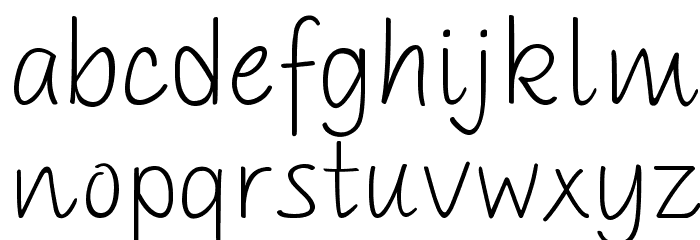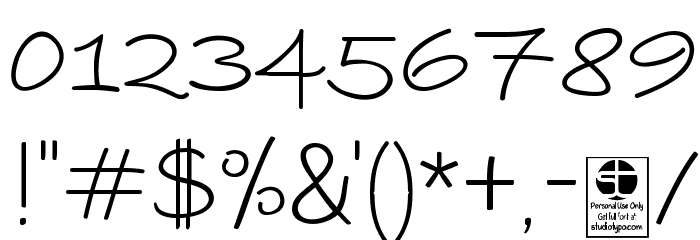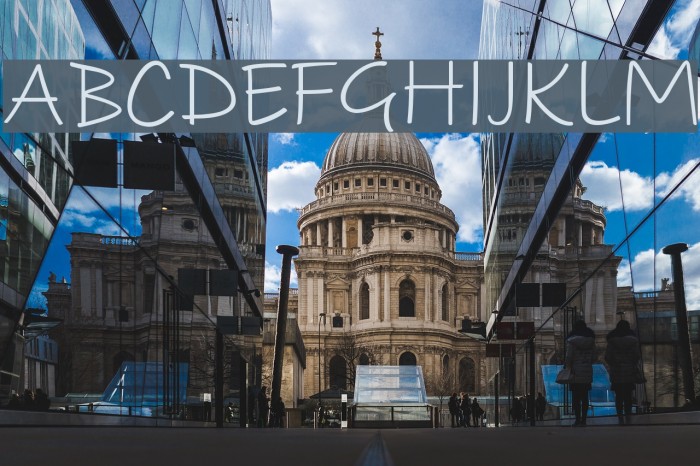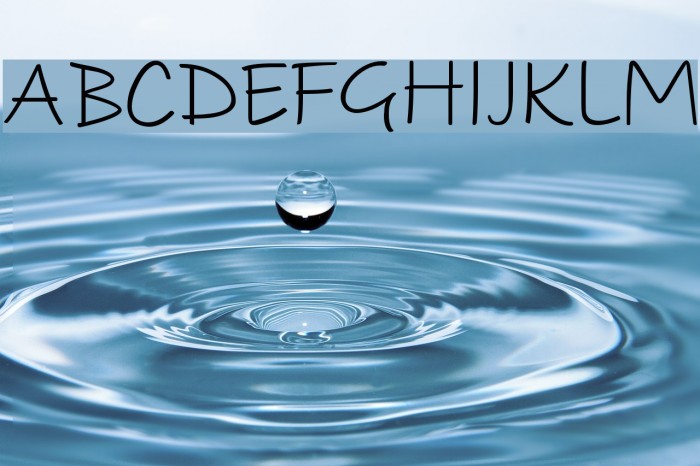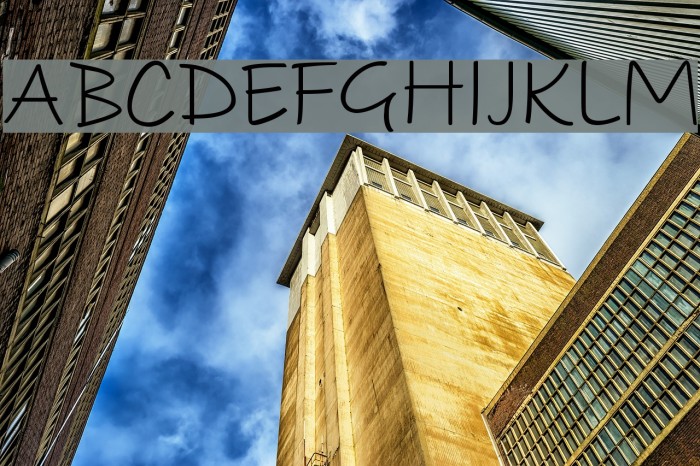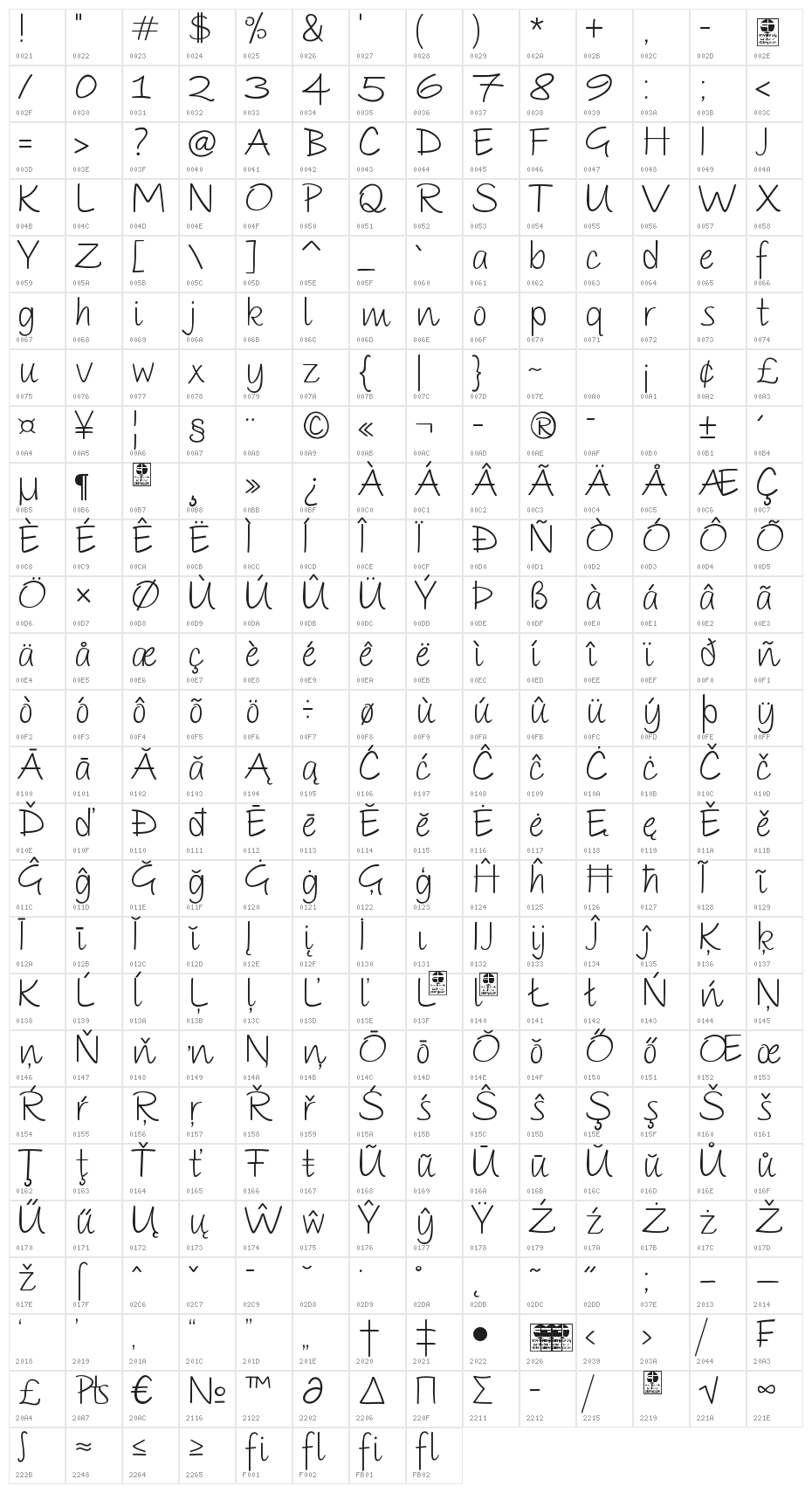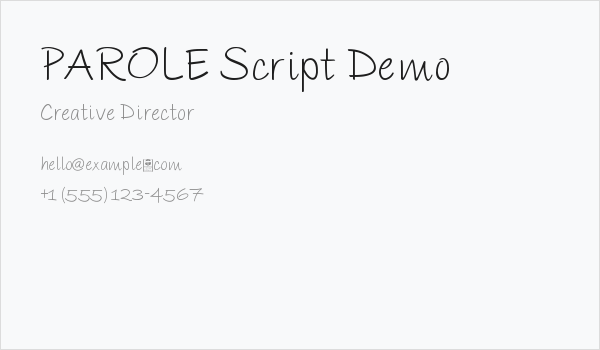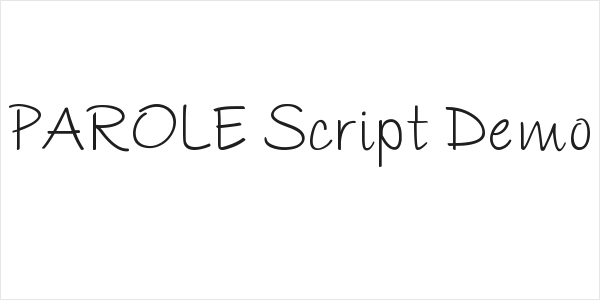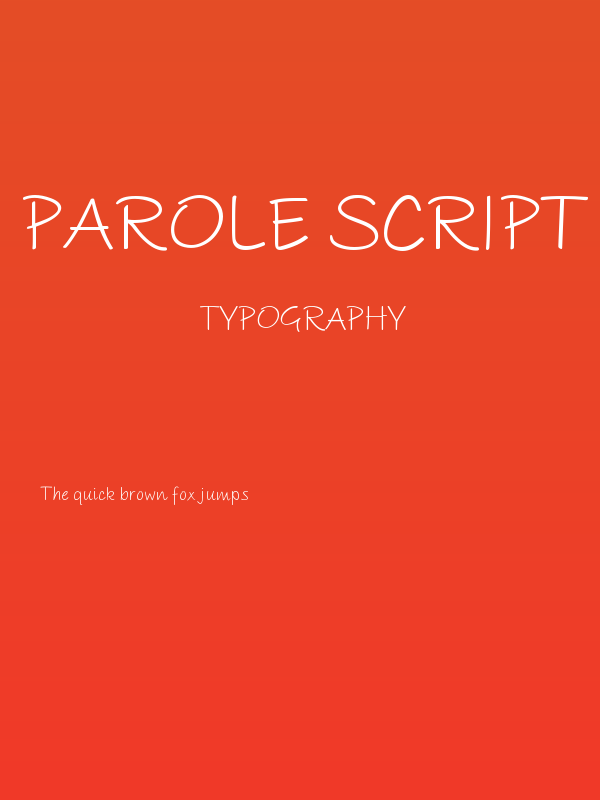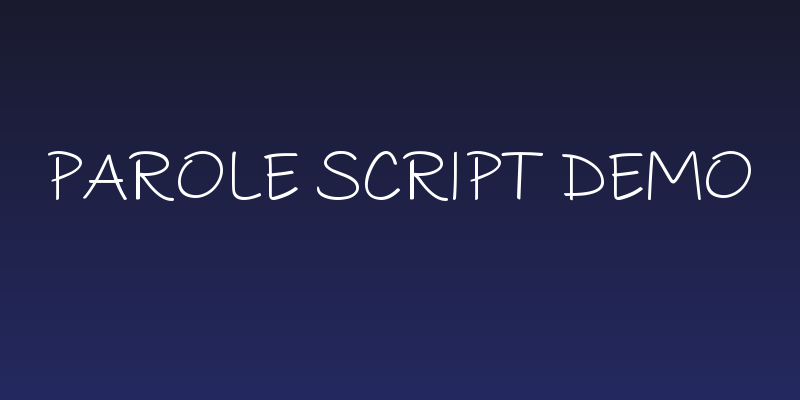
PAROLE Script Demo Font
This font features a playful and casual handwritten style, characterized by its smooth, flowing lines and slightly irregular shapes that mimic natural handwriting. The uppercase letters are tall and slightly narrow, while the lowercase letters maintain a consistent height, creating a harmonious balance. The numerals are clear and legible, matching the overall aesthetic of the alphabet. Special characters are integrated seamlessly, maintaining the font's cohesive look. This font exudes a friendly and approachable vibe, making it suitable for informal and creative projects.
A playful, casual handwritten font with smooth, flowing lines.
- Proposed Projects: Ideal for greeting cards, invitations, personal blogs, and creative branding.
- Overall Style: Casual, Playful
- Use Case: Headlines, Informal Text, Creative Projects